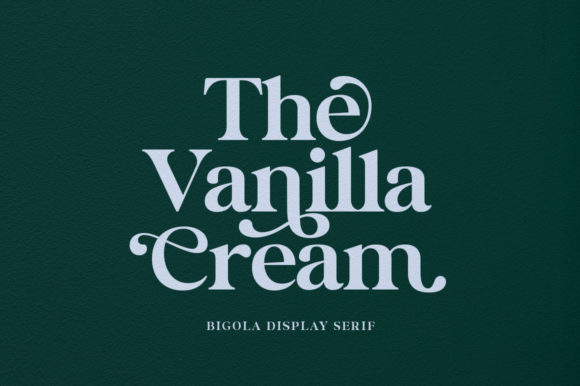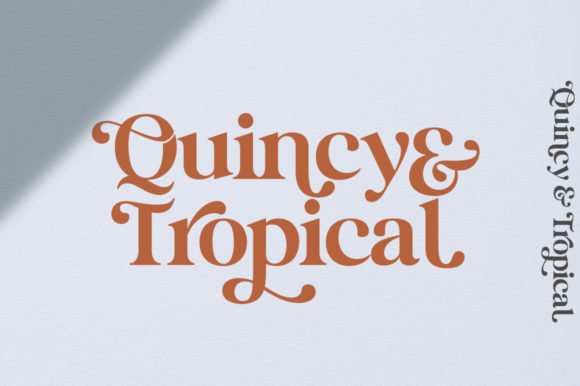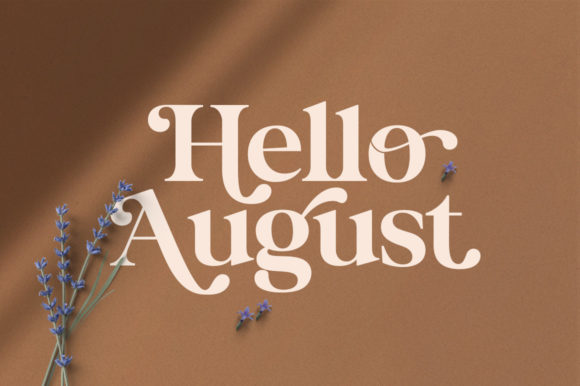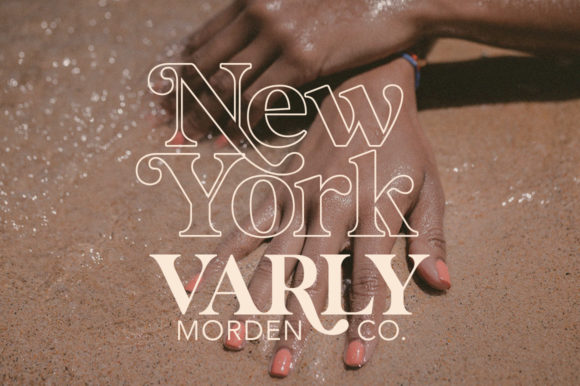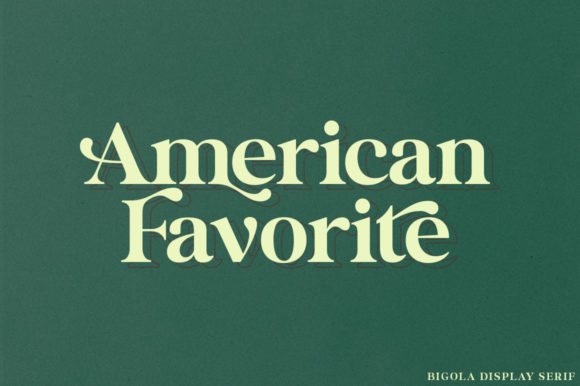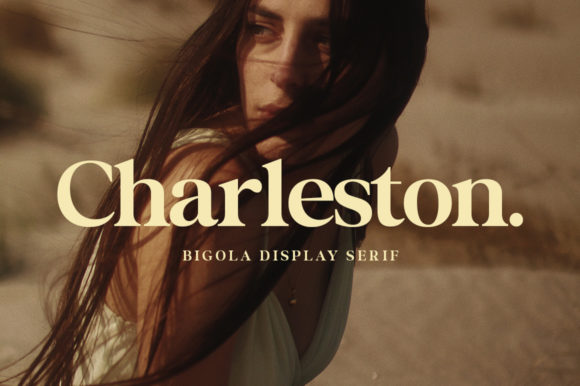
The Perfect Typography Companion for Your Next Creative Project
Have you ever stared at a blank canvas, waiting for inspiration to strike? That moment of blankness can be daunting, but what if I told you there’s a secret ingredient to unlock your creativity and take your designs to the next level? It’s all about the right typography, and I’m excited to introduce you to the Bigola Font.
This cool, bold, and trendy lettered display font is designed to make a statement. With its PUA encoded features, you can easily access all the glyphs and swashes to add that extra flair to your designs. Whether you’re a graphic designer, digital artist, or simply a creative enthusiast, Bigola Font is the perfect companion for your next project.
Bigola Font Key Features
- Font Family: Bigola is a unique, hand-drawn font with a whimsical and playful feel.
- Unique Characteristics: The font features intricate details, flourishes, and swashes that add a touch of elegance and sophistication.
Bigola Font Review
As a designer, I recently had the chance to work with Bigola Font, and I’d like to share my honest thoughts about this font.
- Unique and quirky design: Bigola Font has a distinctive look that can add a touch of personality to your designs.
- High-quality rendering: The font looks crisp and clear, even at larger sizes.
- Good legibility: The letterforms are well-designed, making it easy to read the text.
- Limited character set: Bigola Font only includes a basic set of characters, which might not be sufficient for more complex designs.
- No language support: The font only supports English and a few other languages, which might limit its use for international projects.
- Not suitable for small text: The font’s unique design can make it difficult to read at smaller sizes.
Bigola Font is a fun and quirky font that can add a unique touch to your designs. However, its limitations might make it less suitable for more complex or formal projects. If you’re looking for a font that’s perfect for playful and creative projects, Bigola Font is definitely worth considering.
Tips for Getting the Most Out of Bigola Font
Bigola Font is ideal for creating eye-catching headings and titles. To get the most out of it:
- Use it sparingly to add emphasis and create visual interest.
- Pair it with a clean and simple font for body text.
Bigola Font is commonly used for:
- Headings and titles in designs and presentations.
- Creating attention-grabbing social media graphics.
Alternatives to Bigola Font
Playfair Display is a luxurious, elegant font that is perfect for creating a sophisticated and high-end look. It is ideal for use in luxury brands, weddings, and other high-end events. When to use: formal invitations, luxury brand identities, high-end packaging.
Playfair Display has a similar sense of grandeur and opulence to Bigola Font, but with a more refined and sophisticated feel. It has a more traditional, classic look, whereas Bigola Font has a more modern and edgy feel.
Great Vibes is a beautiful, elegant font that is perfect for creating a sense of luxury and sophistication. It is ideal for use in high-end brands, luxury events, and special occasions. When to use: luxury brand identities, high-end packaging, special occasion invitations.
Great Vibes has a similar sense of elegance and sophistication to Bigola Font, but with a more relaxed and casual feel. It has a more modern and versatile look, making it suitable for a wide range of applications.
Bellota
Bellota is a luxurious, elegant font that is perfect for creating a sense of sophistication and refinement. It is ideal for use in high-end brands, luxury events, and special occasions. When to use: luxury brand identities, high-end packaging, special occasion invitations.
Bellota has a similar sense of luxury and sophistication to Bigola Font, but with a more modern and sleek feel. It has a more elegant and refined look, making it suitable for high-end applications.